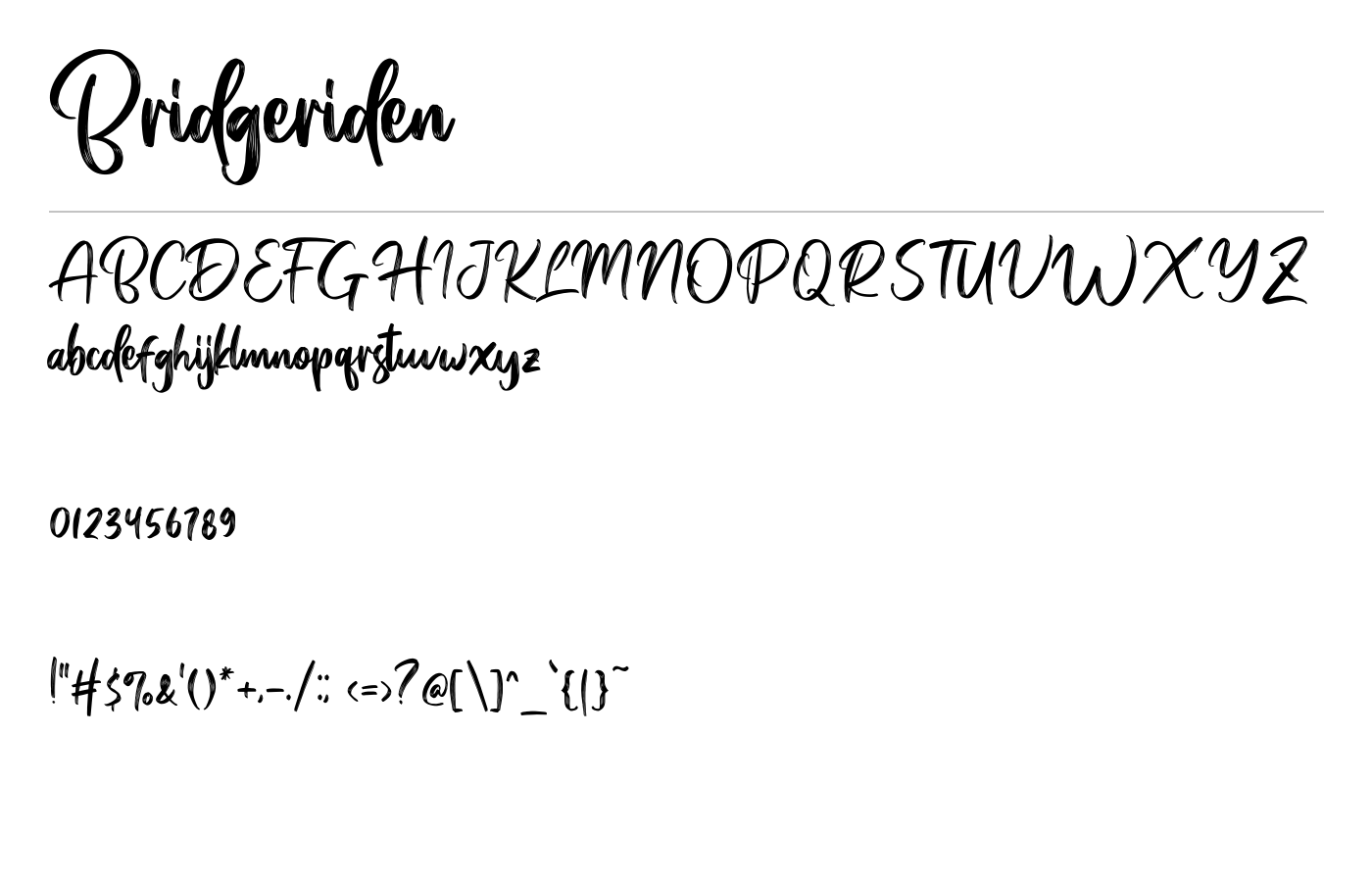
Bridgeriden is a stylish script font with a playful yet elegant feel, featuring smooth, flowing strokes and a hand-drawn character that adds a personal touch. Its moderately high contrast and varying stroke thickness give it a lively, dynamic appearance, ideal for branding, invitations, and creative projects seeking a warm and approachable vibe. This font works well in logos, headers, and packaging, where its unique charm can truly stand out.
Bridgeriden Font
About Bridgeriden Font